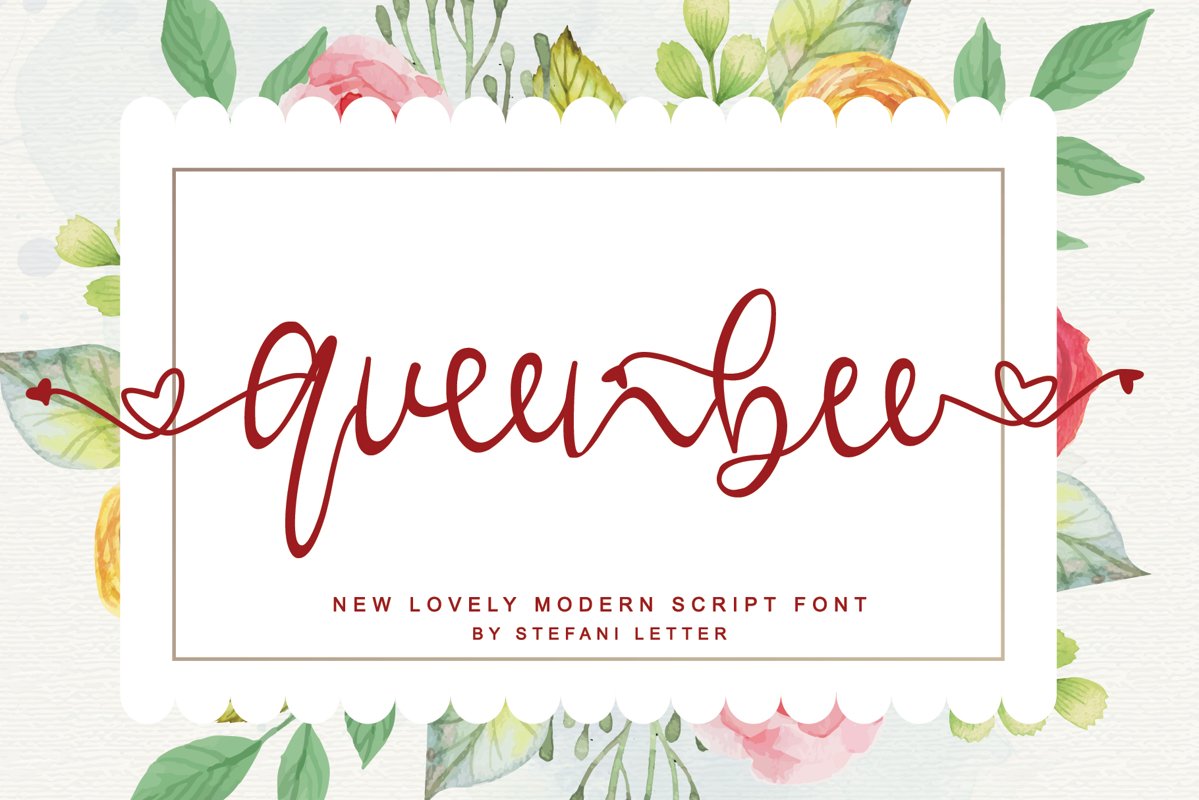
queenbee
queenbee is
a sweet and cute font with special heart characters.  Get inspired by its gorgeous swashes and
create beautiful designs with a romantic touch to any crafting project!
the cute glyphs and swashes with ease! It also features a wealth of special
features including alternate glyphs and ligatures.